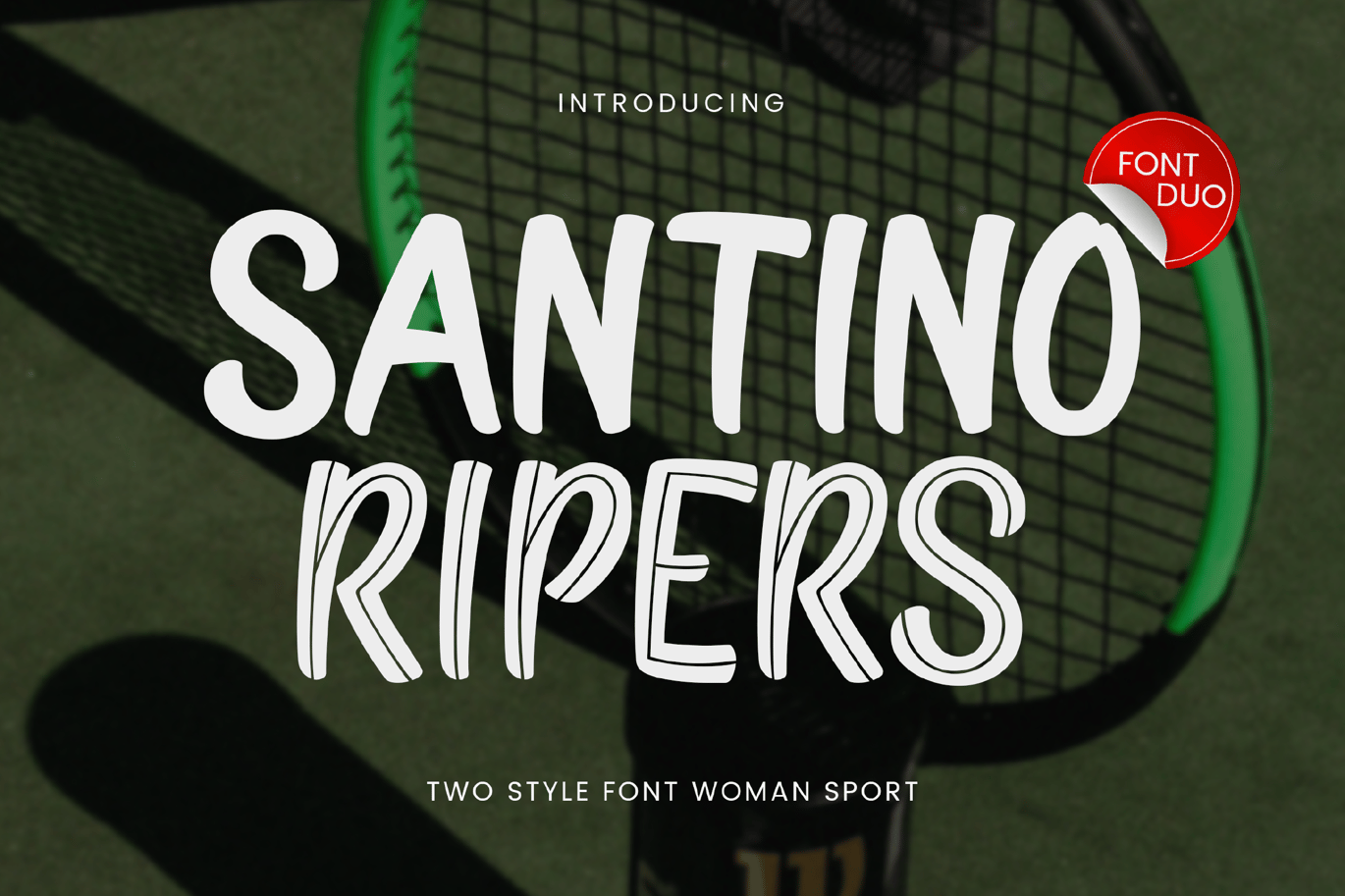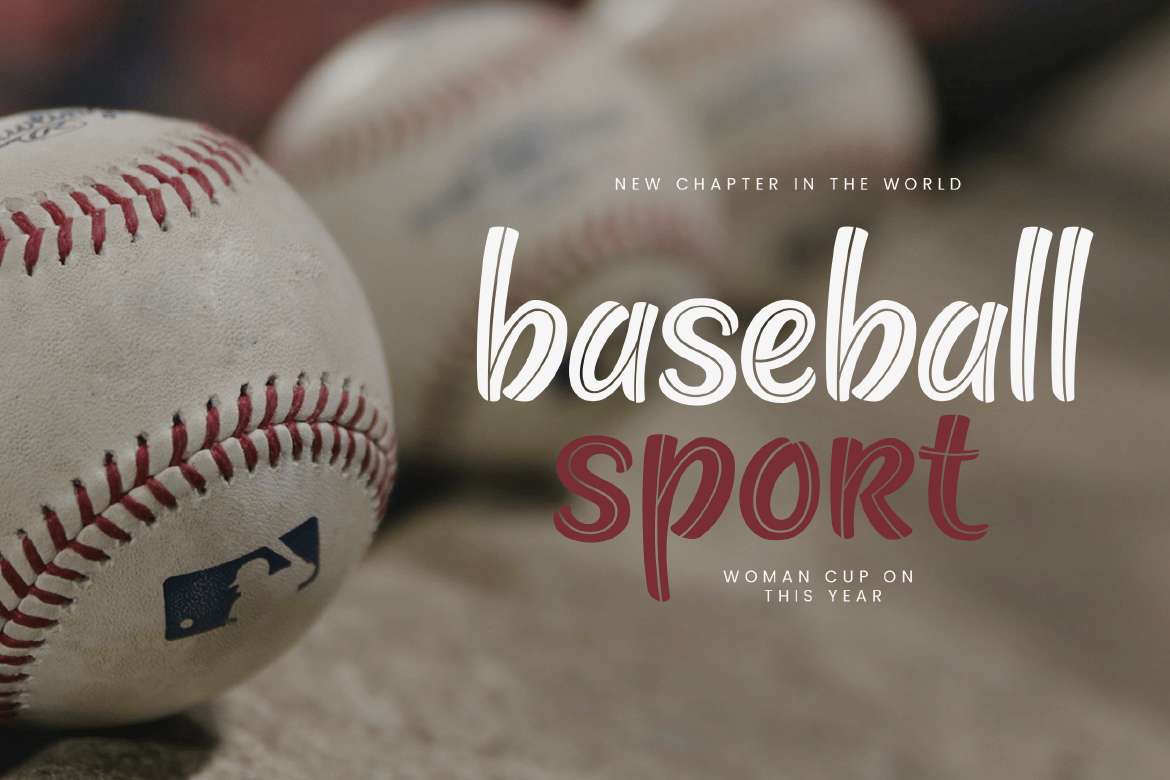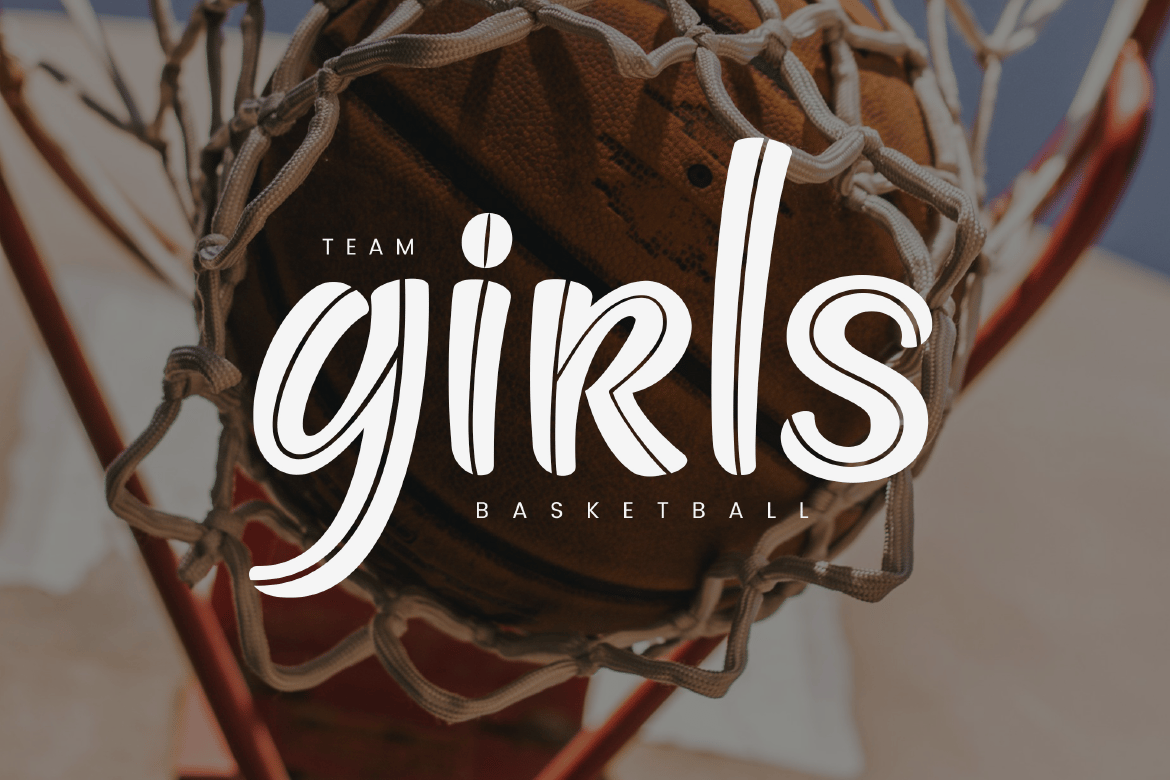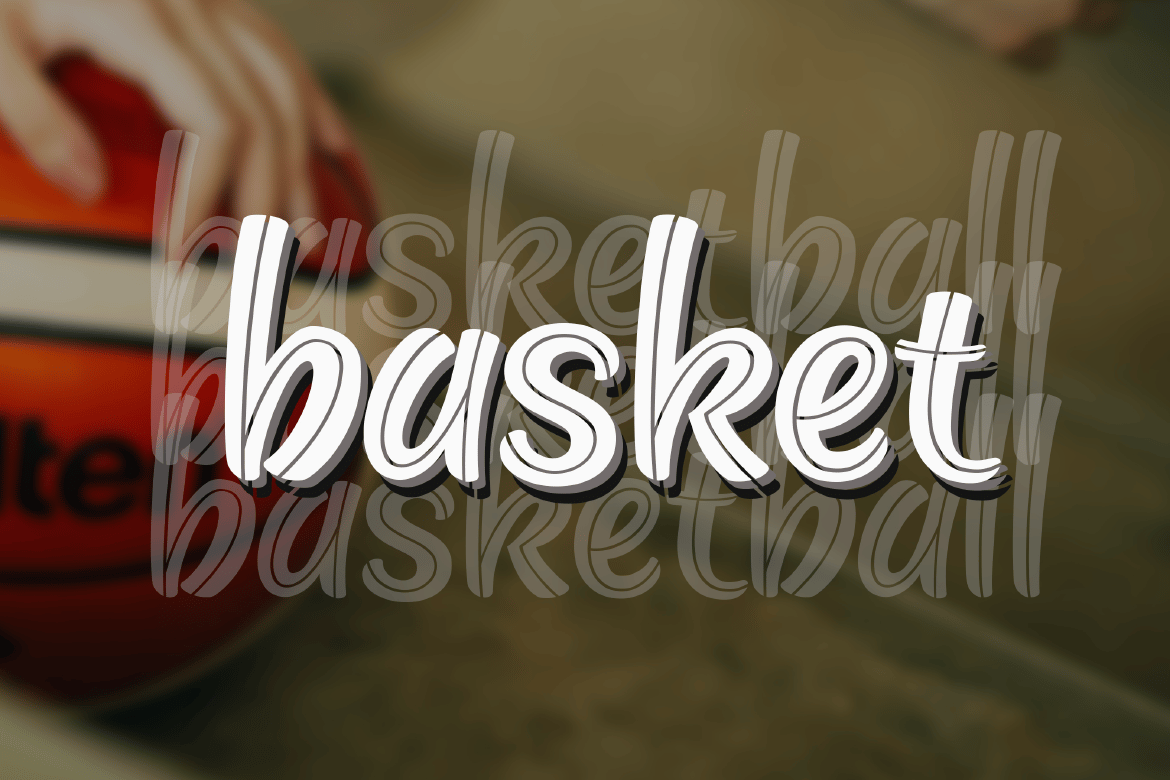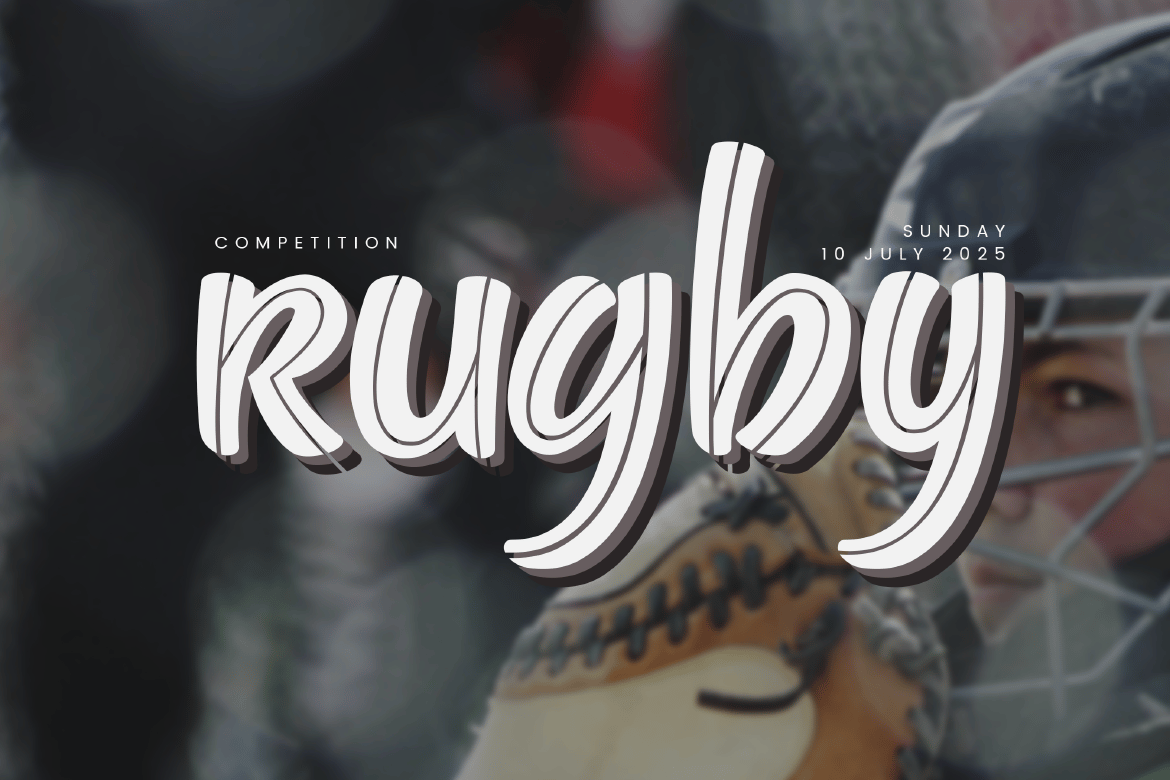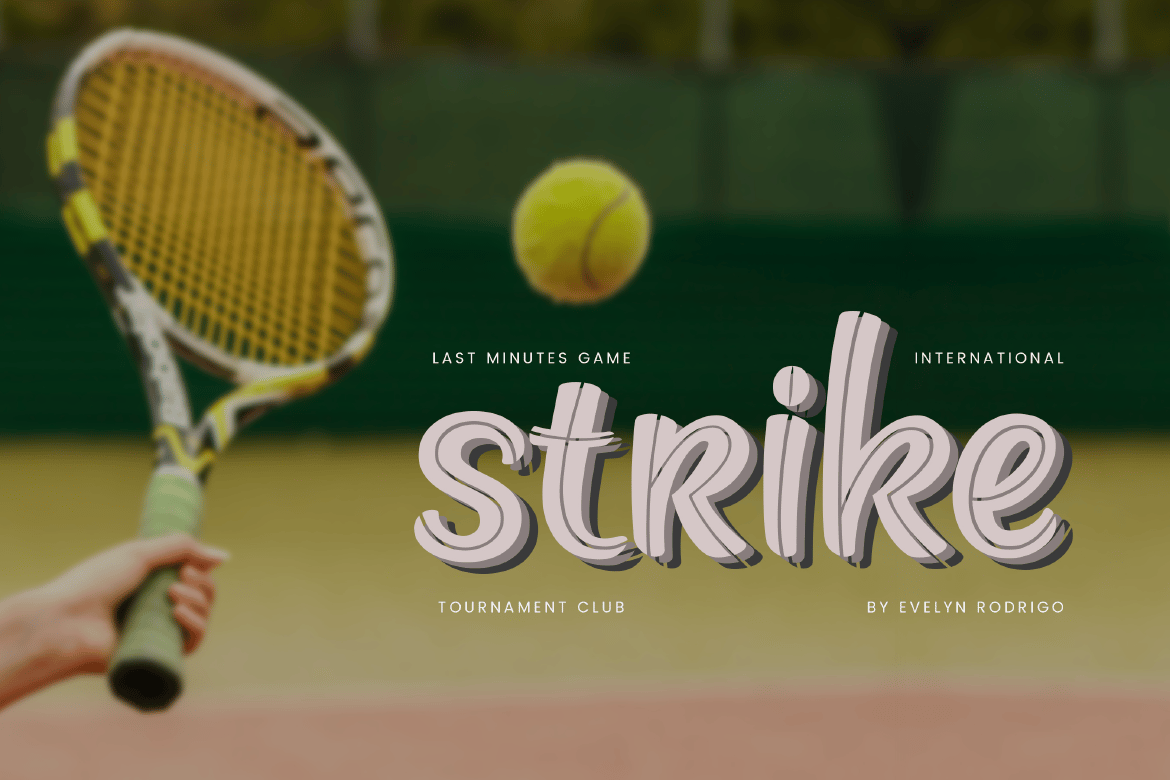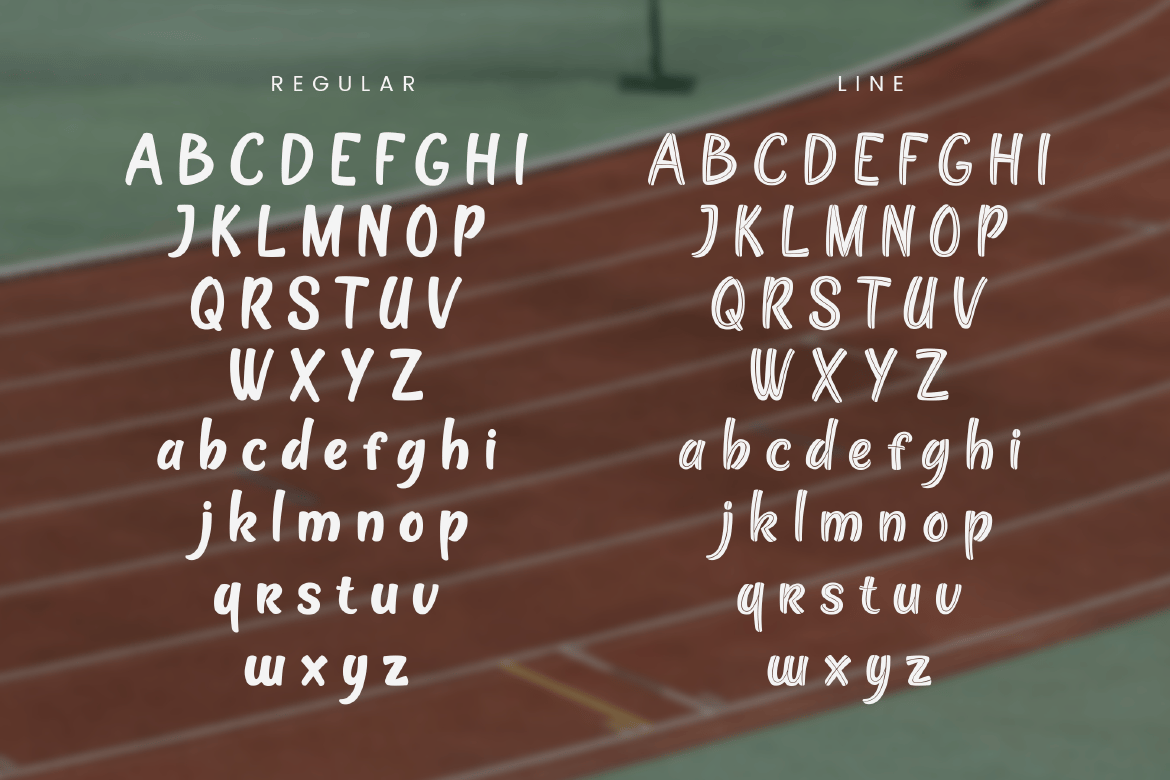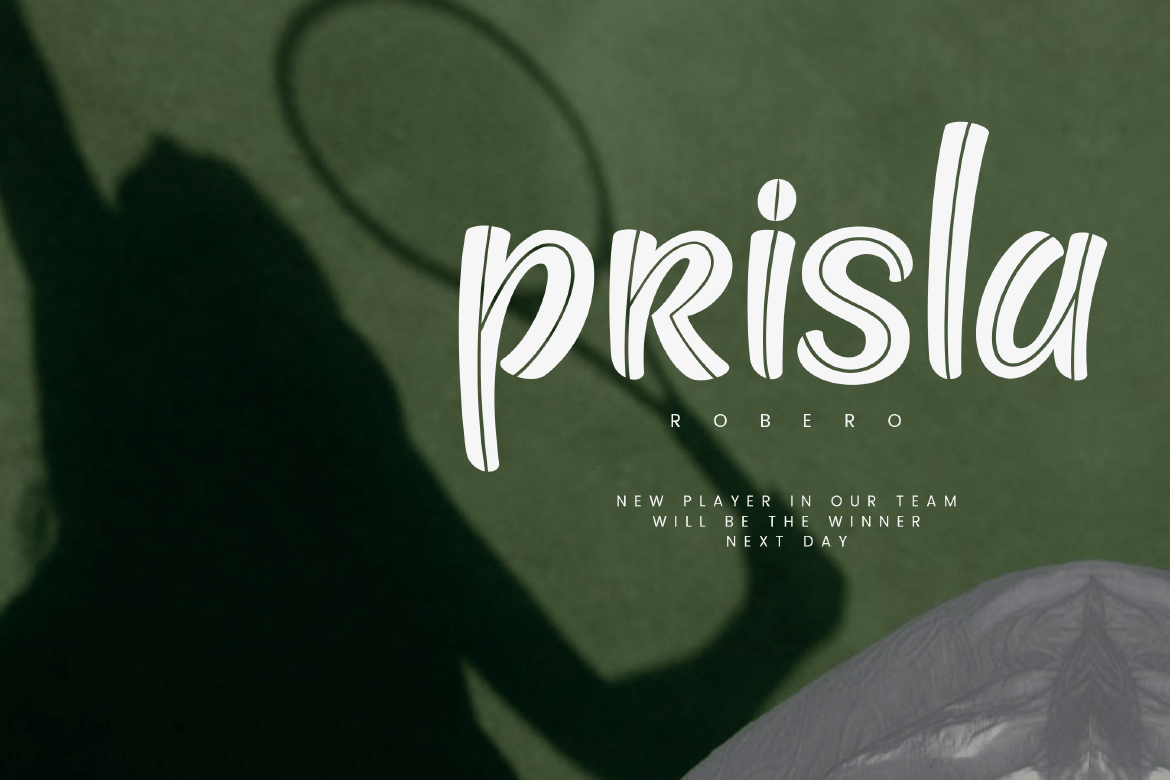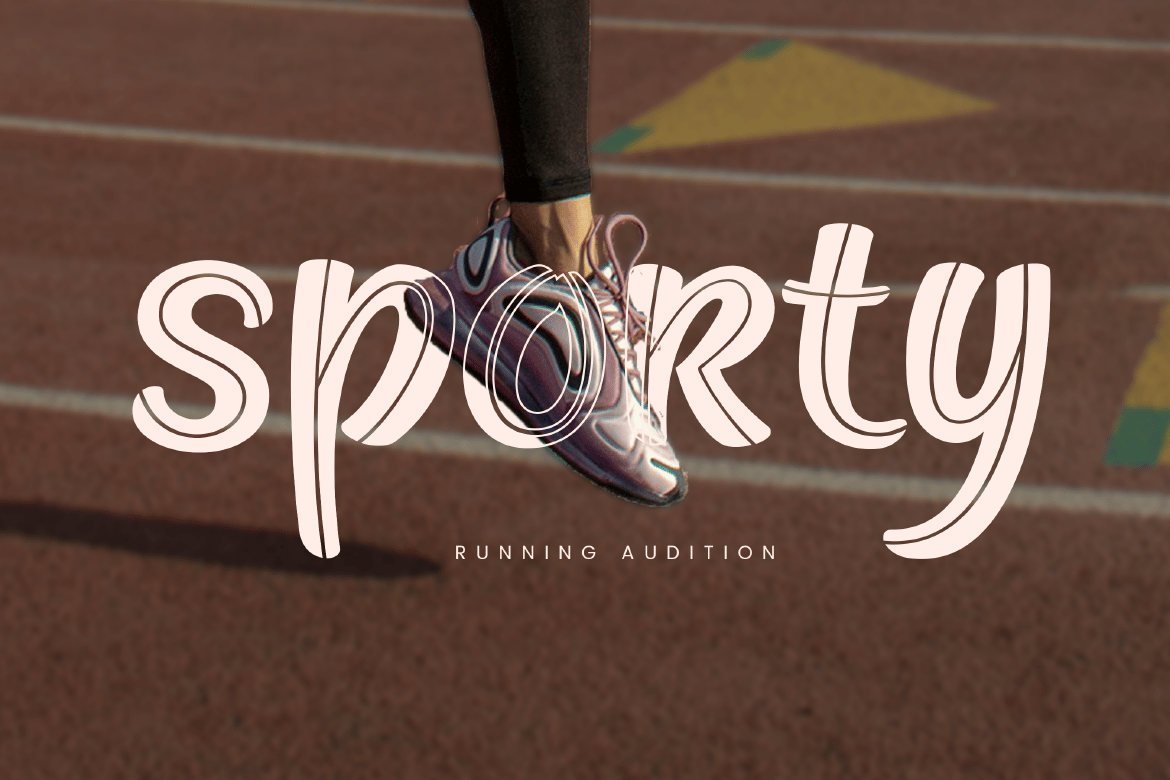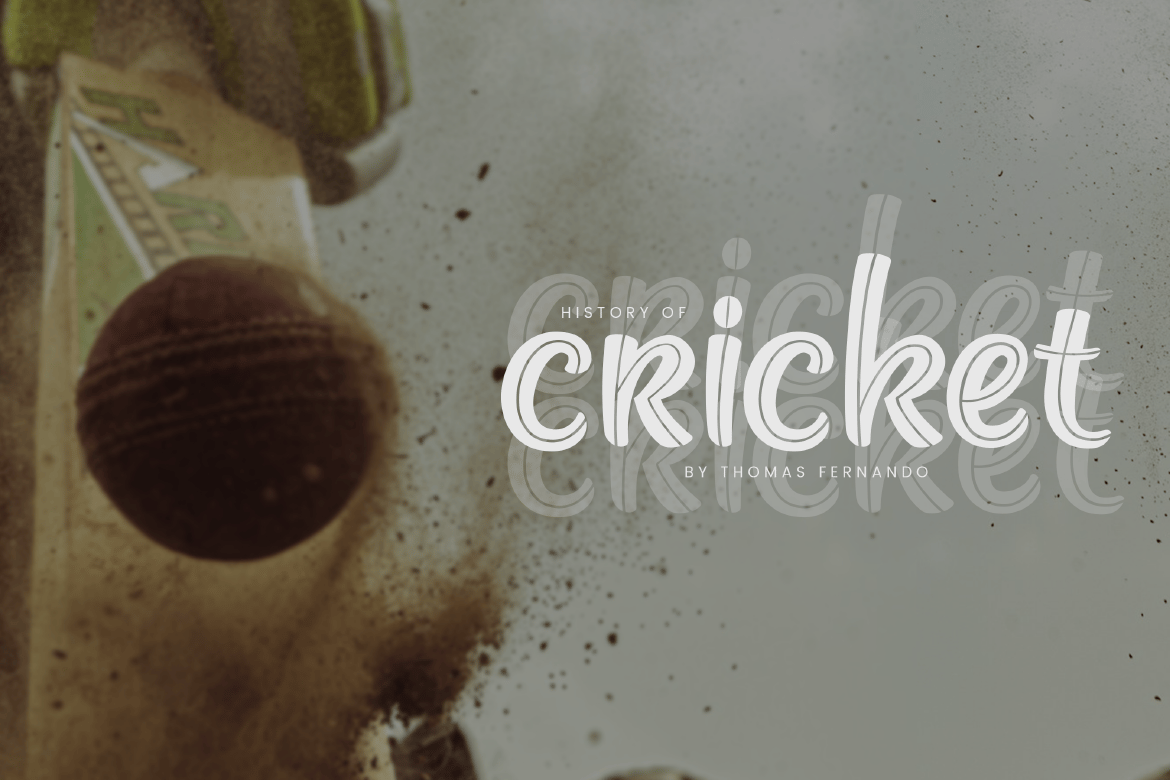
Santino Ripers – Feminine Sport Font
Introducing “Santino Ripers,” a bold and dynamic font designed to celebrate the strength and elegance of women in sports. With its two versatile styles, Regular and Line, Santino Ripers is perfect for sports branding, apparel, promotional materials, and more, ensuring your designs radiate confidence and energy.